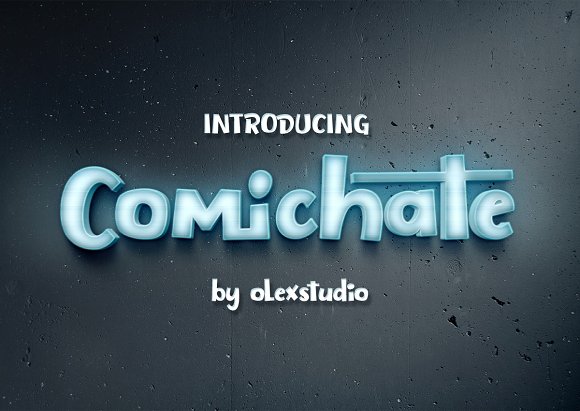
Prepare yourself to be swept away by Comichate, a display font that oozes fun and individuality, ready to add a touch of whimsy to your creative endeavors.
Comichate's playful nature makes it an ideal choice for marketing and branding projects, as it effortlessly captures attention and leaves a lasting impression. Its professional appearance ensures that your message is conveyed with clarity and sophistication, while its playful vibe injects a touch of lightheartedness that resonates with audiences.
Step into the world of craft projects with Comichate, where your imagination takes center stage. This user-friendly font effortlessly transforms ordinary designs into captivating masterpieces, adding a personal touch that reflects your unique style. The seamless readability of Comichate guarantees that your messages shine through, captivating audiences with their clarity and charm.
Whether you're a seasoned designer or embarking on your creative journey, Comichate is your steadfast companion, guiding you towards design brilliance. Its versatility knows no bounds, adapting seamlessly to a myriad of projects, from playful invitations to captivating social media posts.
Experience the magic of Comichate today and unlock a world of creative possibilities. Let your imagination soar as you witness the transformation of ordinary designs into extraordinary works of art. Embrace the power of playful expression and leave an unforgettable mark on your audience's hearts.